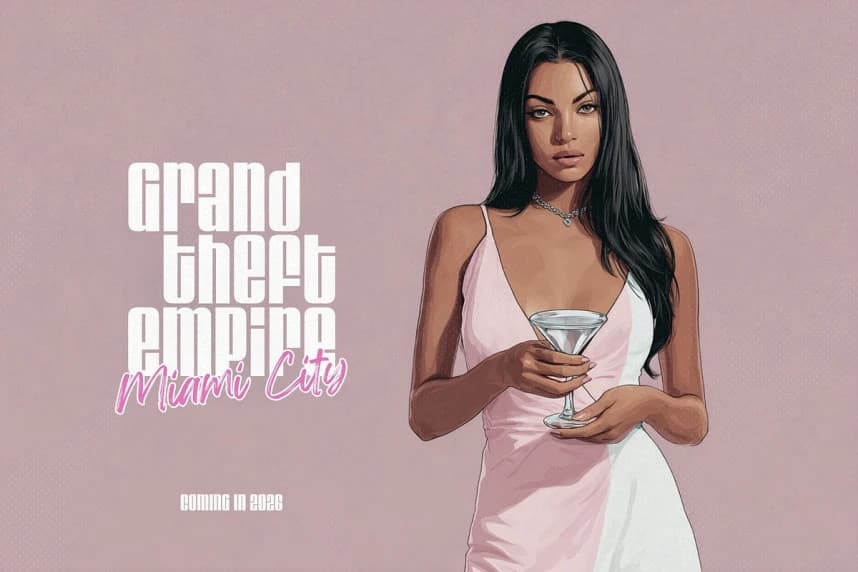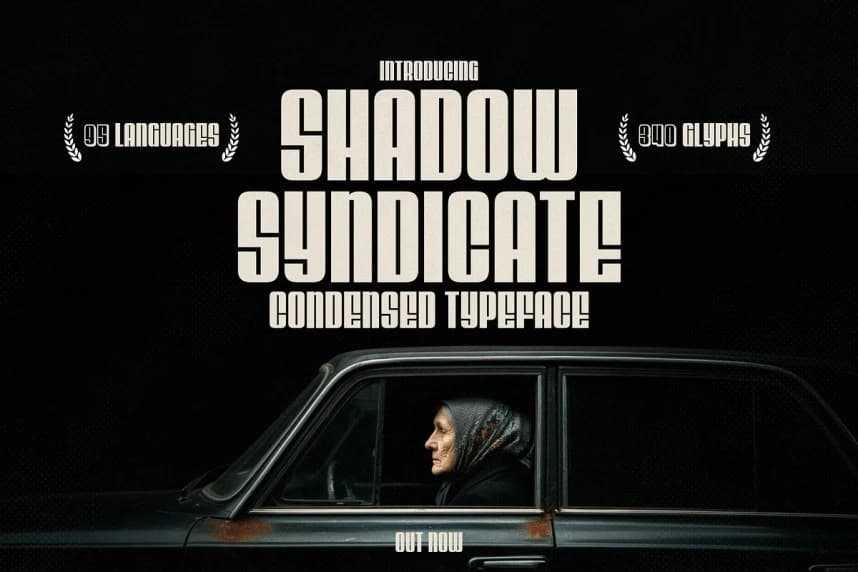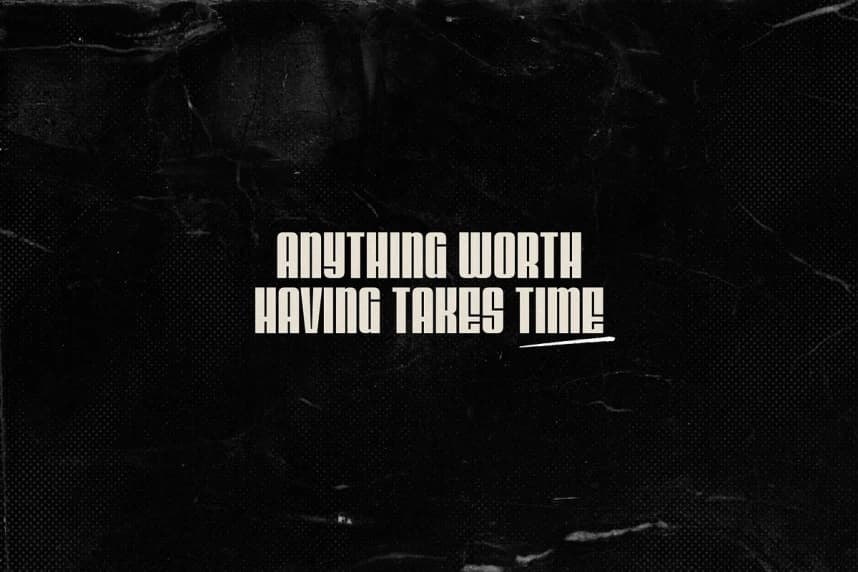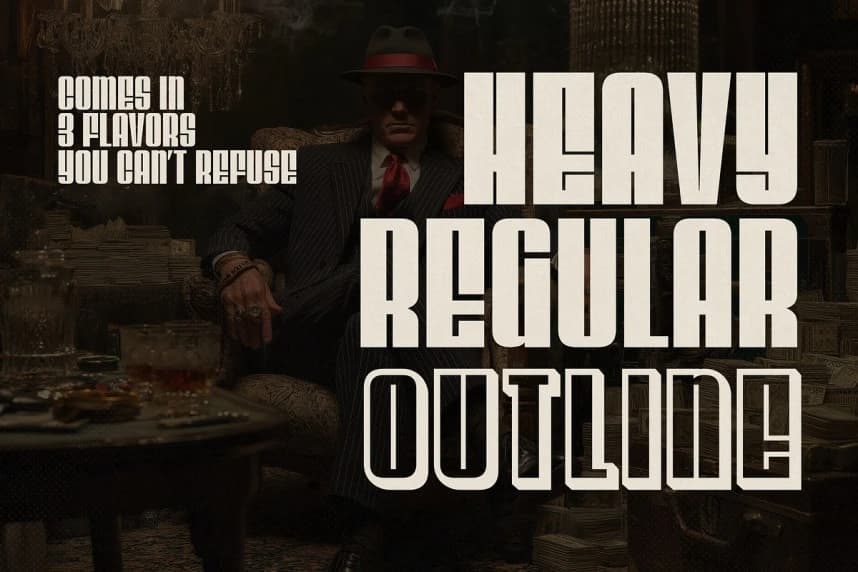
Shadow Syndicate Font, a sleek sans-serif condensed typeface designed for bold impact. Available in Regular, Heavy, and Outline styles, this mafia-inspired font exudes power, precision, and attitude. Perfect for a vast variety of creative projects